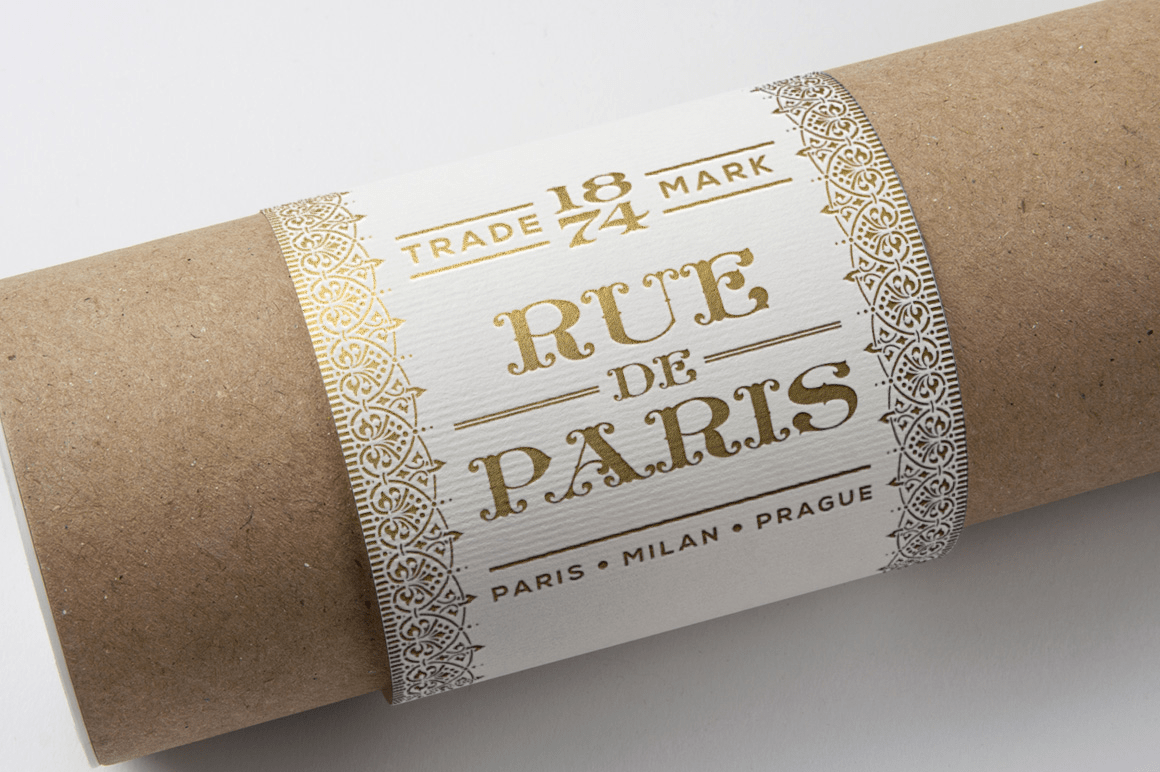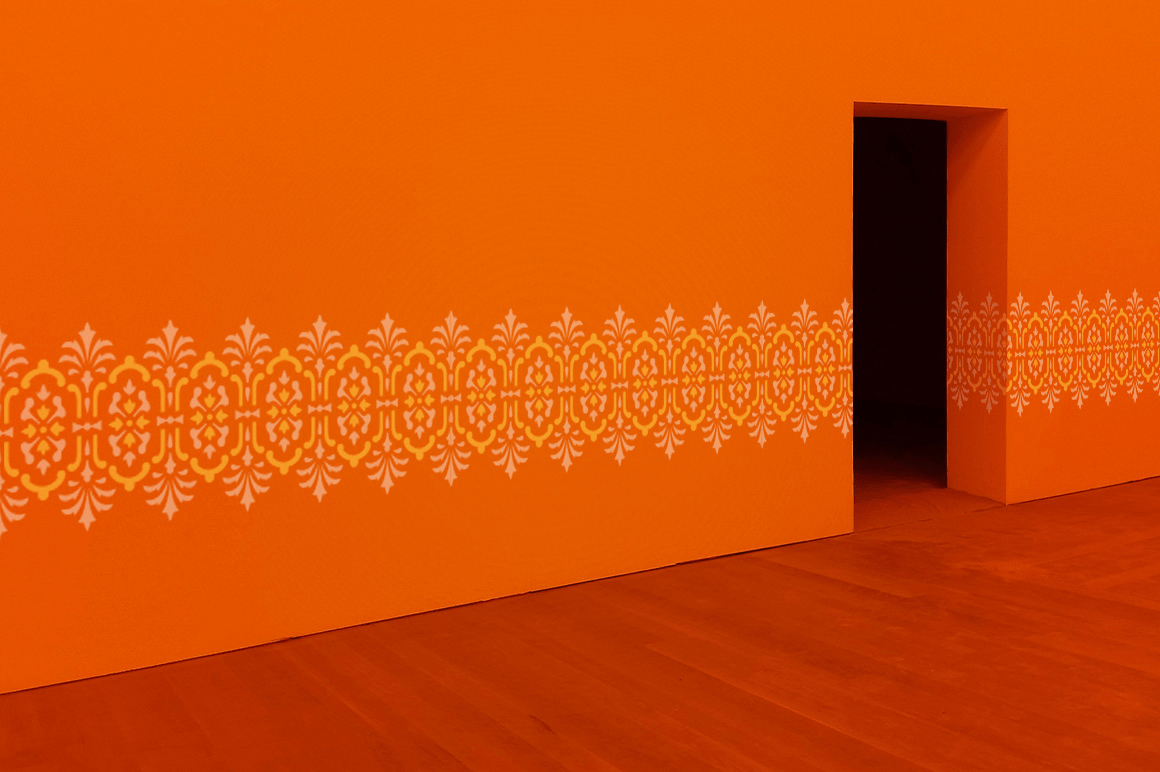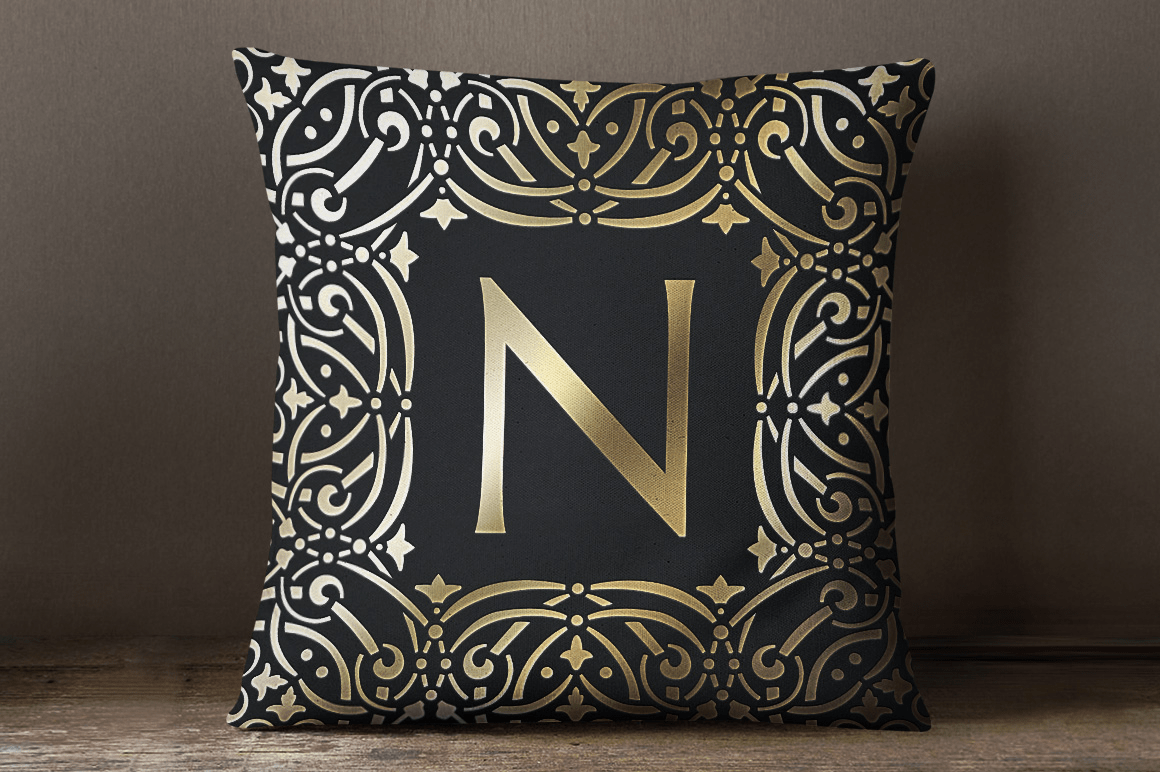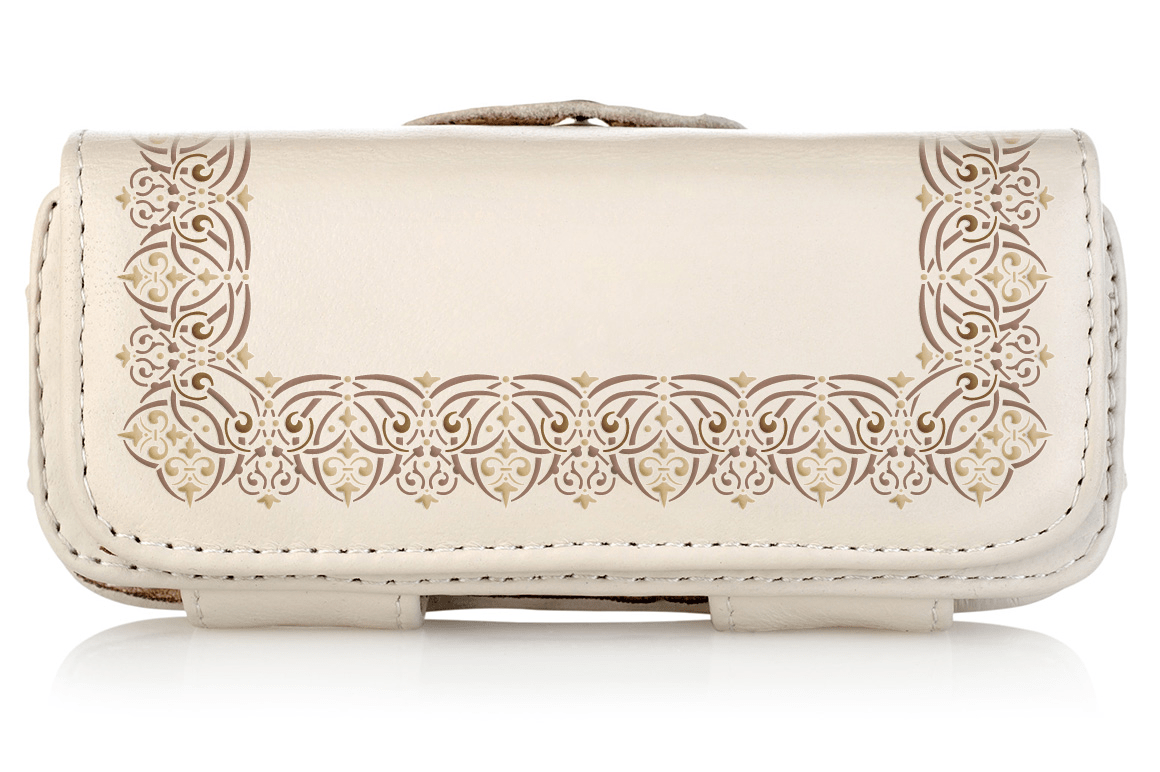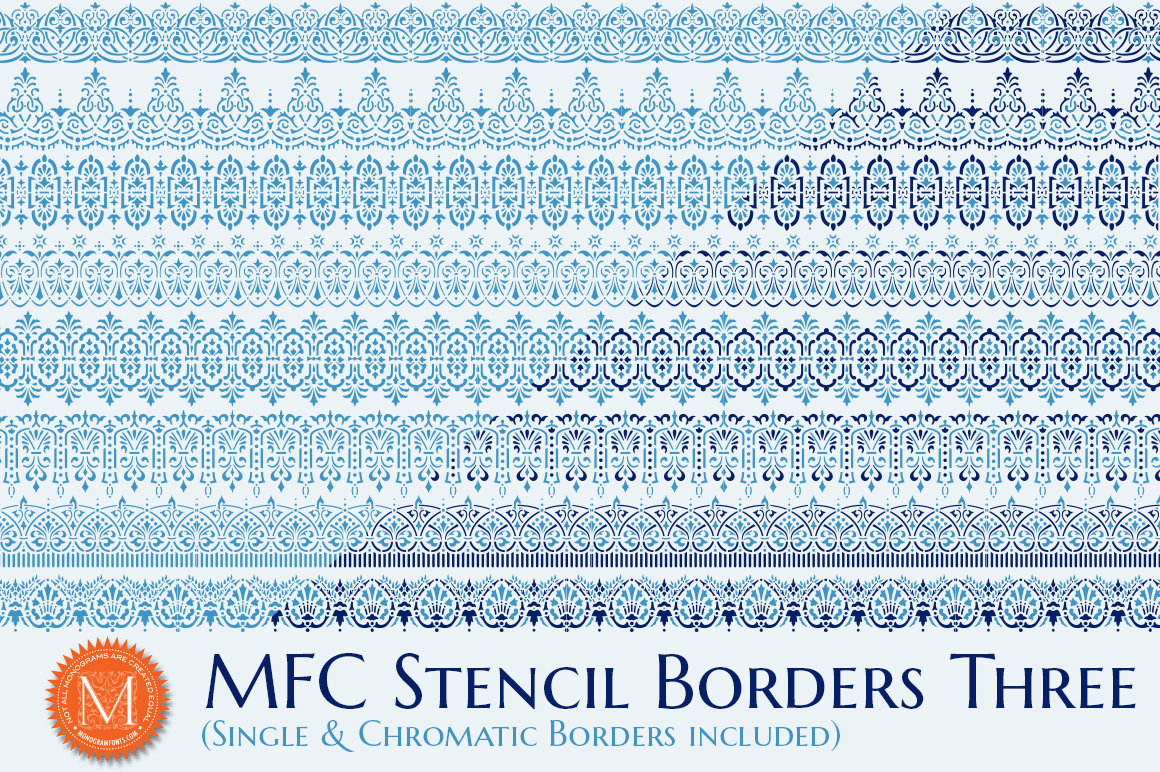
MFC Stencil Borders Three
About MFC Stencil Borders Three
The inspiration source for MFC Stencil Borders Three are stencil patterns from the circa early 1900\’s Blue Label Brand Stencil booklet. The original designs were produced as single color stencils designs, mostly as trims (without corners to complete them…